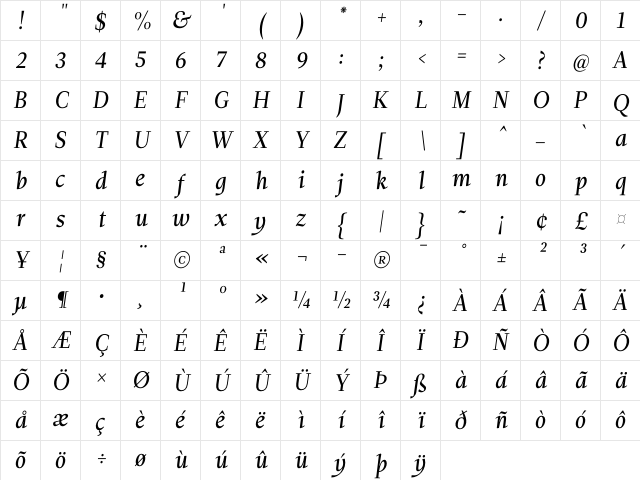
Leitura Italic 2
Style: Italic 2
Foundry: Dino dos Santos _DSType
Designer: Dino dos Santos
Design Context for Leitura
Leitura is a composed and adaptable typeface that performs quietly and consistently across a wide range of design contexts. The slanted form adds forward momentum and visual energy.